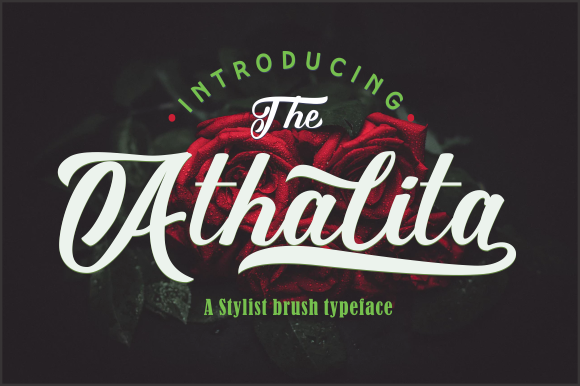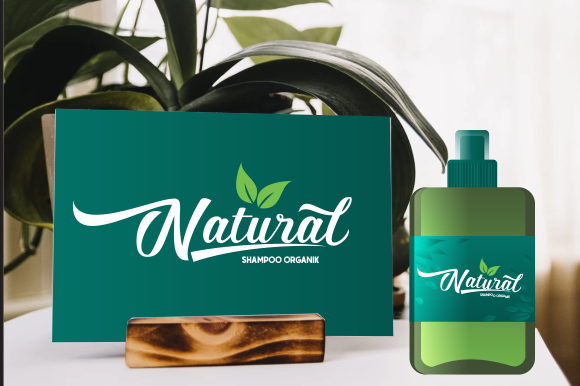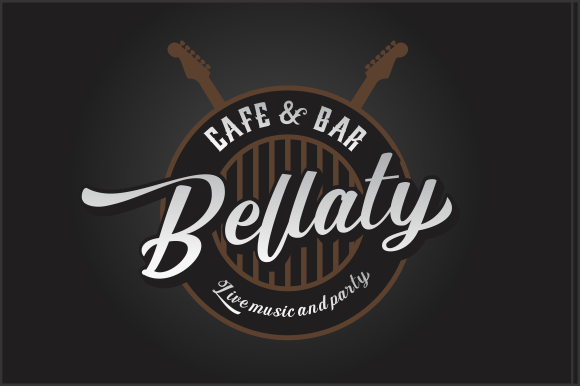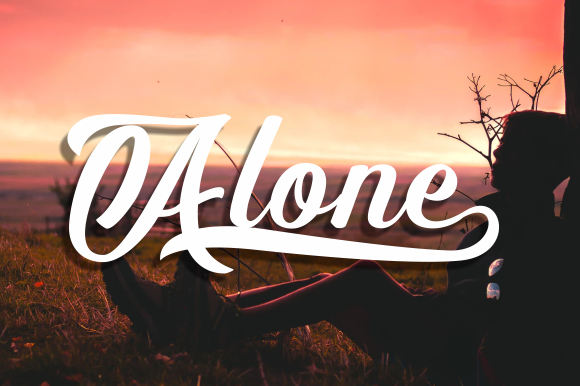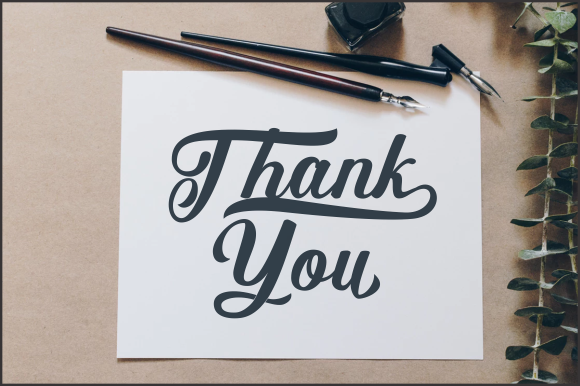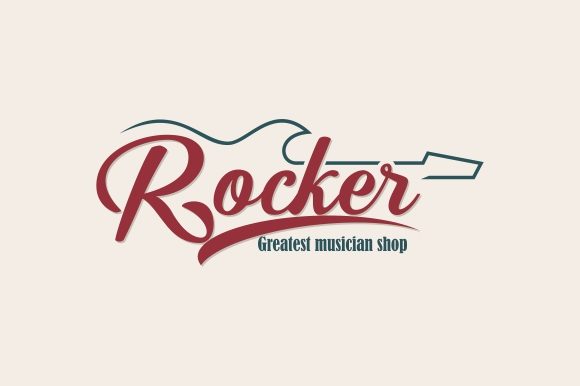
Athalita Font: Timeless Elegance for Your Design
Have you ever stared at a blank page, searching for the perfect font to bring your design to life? It’s that moment when the creative wheels start turning, and you’re on the hunt for the perfect combination of style and sophistication. For designers, finding the right font can make all the difference in conveying the intended message and capturing the audience’s attention.
Enter the Athalita Font, a stunning brush typeface that exudes classy and charming vibes while maintaining its timeless feel. With its elegant curves and refined aesthetic, the Athalita Font is perfect for designers who want to add a touch of sophistication to their projects. Whether you’re working on a high-end branding campaign or a elegant wedding invitation, the Athalita Font is sure to make a lasting impression.
- Unique Characteristics: Features a unique blend of modern and traditional design elements, with a focus on legibility and readability
Athalita Font is a beautiful script font that I had the pleasure of working with. Here are my honest thoughts on its strengths and weaknesses.
- Unique, elegant design: Athalita Font has a unique, elegant design that adds a touch of sophistication to any project.
- Good legibility: Despite its script nature, Athalita Font is surprisingly legible, making it a great choice for body text.
- Wide character set: The font has a wide character set that includes various international characters, making it a great choice for projects that require language support.
- Limited availability: Athalita Font is a relatively new font, and it may not be widely available on all platforms or operating systems.
- No bold or italic variants: Unfortunately, Athalita Font does not have bold or italic variants, which may limit its use in certain projects.
Overall, I think Athalita Font is a great addition to any designer’s toolkit. Its unique design and good legibility make it a great choice for projects that require a touch of elegance. However, its limited availability and lack of bold or italic variants may be a concern for some designers.
Athalita font is ideal for creating elegant, handwritten-style text. Use it for:
– Wedding invitations
– Personalized gift tags
– Handwritten-style quotes and captions
– Creative headings and titles